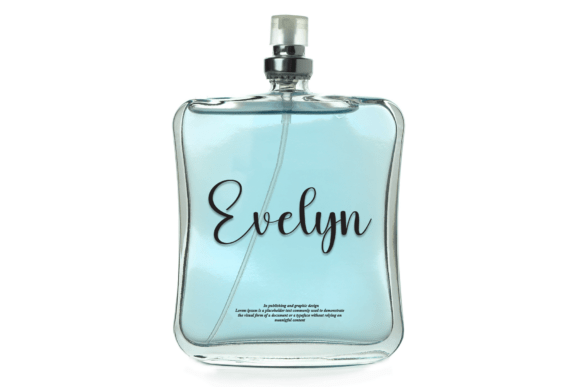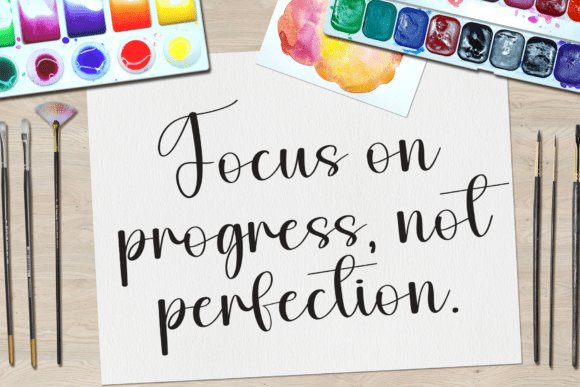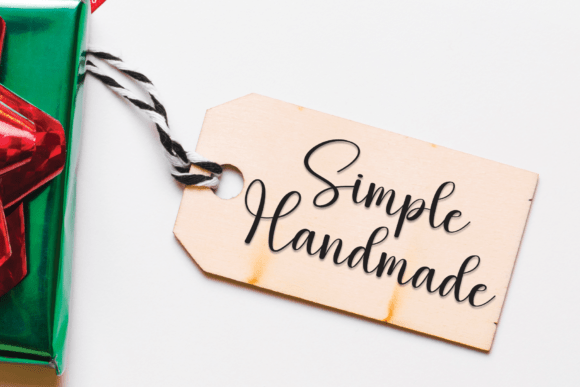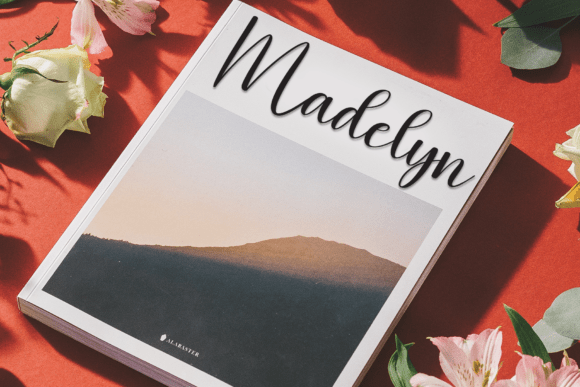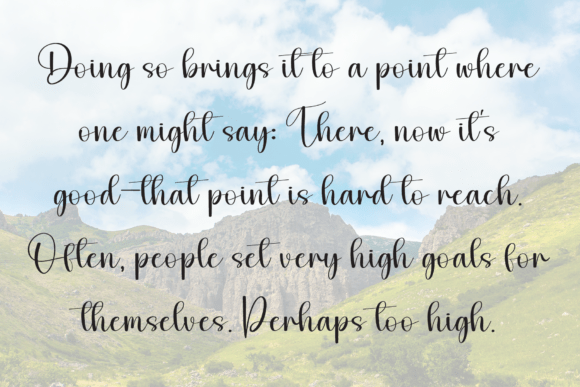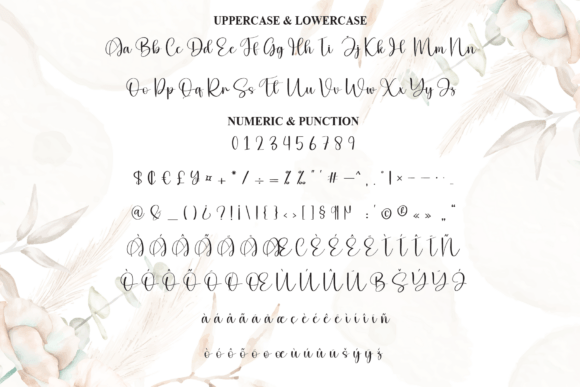
Unlocking Creative Potential with Angela Font
Have you ever been in the middle of a design project, pouring your heart and soul into it, only to hit a roadblock when it comes to finding the perfect font? I certainly have. It was during one of those frustrating moments that I stumbled upon Angela Font, a game-changing creative product that has since become an indispensable part of my design toolkit.
A Game-Changer for Designers
Angela Font offers special creative products designed to give you an extraordinary experience. The latest style letters are perfect for a wide range of applications, including wall displays, wedding invitations, social media post logos, advertisements, product packaging, product designs, labels, photography, watermarks, invitations, stationery, and any project that requires tasteful handwriting.
My Honest Review
I’ve had the pleasure of working with Angela Font for a while now, and here’s my take:
- ✨ Versatility: This font is incredibly versatile. I’ve used it for everything from professional client projects to personal DIY crafts, and it always seems to fit right in.
- 💫 Aesthetic Appeal: The unique style of Angela Font adds a touch of elegance and personality to any project. It’s truly a standout.
While Angela Font has been a fantastic addition to my design arsenal, there are a couple of things to keep in mind:
- 🤔 Learning Curve for Advanced Features: If you’re new to using OpenType features or glyphs, there might be a bit of a learning curve. However, there are plenty of resources available online to help you get the hang of it.
- ⚠️ Limited Use in Certain Contexts: While the font is incredibly versatile, there might be certain projects or industries where a more traditional or formal font is required. It’s always a good idea to consider the context and audience of your project.
The Designer Inspiration Behind Angela Font
Angela Font was inspired by a desire to create a unique, versatile typeface that could be used across a wide range of creative projects. The designer sought to craft a font that was both elegant and approachable, with a distinctive character that would stand out in any design.